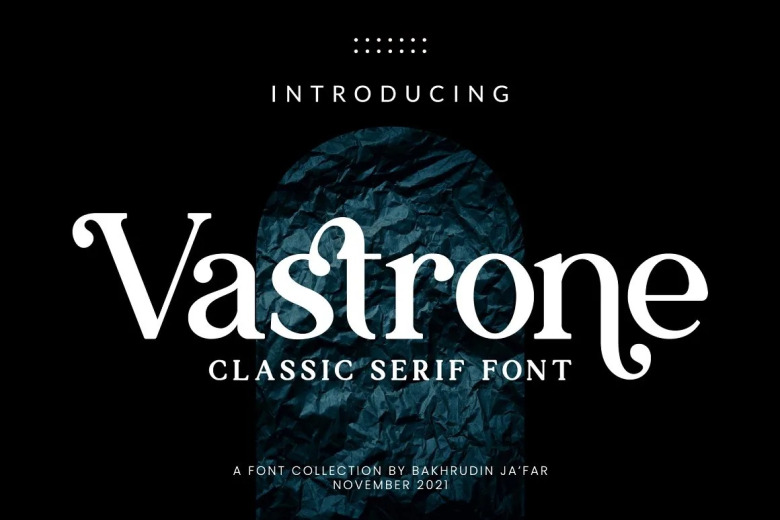
Vastrone Font
Vastrone Classic Serif Font is a stylish and strong serif font. Get inspired by its stunning look, and use it for wedding invites, classy stationery, social media posts, and much more! It includes PUA encoding that permits you to completely access all the wonderful glyphs and ligatures with ease!
Vastrone Classic Serif Font